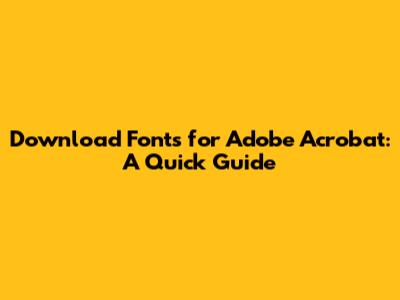
- Enhance Visual Appeal: Using unique and stylish fonts can make your documents stand out and grab attention.
- Maintain Brand Consistency: If your brand uses specific fonts, you'll need to ensure your PDFs reflect that.
- Improve Readability: Some fonts are simply easier to read than others, making your documents more accessible.
- Ensure Compatibility: Sometimes, a PDF might use fonts that aren't installed on the recipient's computer. Downloading and embedding the fonts ensures everyone sees the document as intended.
- TrueType Fonts (TTF): These are the most common type of font and are supported by both Windows and macOS. They're scalable, meaning they look good at any size.
- OpenType Fonts (OTF): OTF fonts are an extension of TrueType fonts and offer more advanced typographic features, such as ligatures, swashes, and alternate characters. They also support a wider range of characters and languages.
- PostScript Fonts (Type 1): These are older fonts that are less common these days. They're primarily used in professional printing and graphic design.
- Google Fonts: A fantastic resource for free, open-source fonts. Google Fonts offers a wide variety of styles and languages, and they're super easy to download and use.
- Adobe Fonts (formerly Typekit): If you're an Adobe Creative Cloud subscriber, you have access to thousands of fonts through Adobe Fonts. These fonts are high-quality and seamlessly integrate with Adobe Acrobat and other Adobe applications.
- MyFonts: A commercial font marketplace with a vast selection of fonts from independent foundries and designers. If you're looking for something truly unique, MyFonts is a great place to start.
- Font Squirrel: Another great source for free fonts, with a focus on fonts that are licensed for commercial use. They also have a handy Font Identifier tool that can help you identify fonts from images.
- Creative Market: This marketplace offers a wide range of design assets, including fonts. You can often find font bundles and discounted deals here.
- Legibility: Is the font easy to read, especially in smaller sizes? Avoid overly decorative or stylized fonts for body text.
- Purpose: What is the document for? A formal report will require a different font than a playful flyer.
- Brand: Does the font align with your brand's personality and values?
- Compatibility: Will the font be easily accessible and viewable on different devices and operating systems?
- Open Adobe Acrobat: Launch the application.
- Go to Preferences:
- Windows: Edit > Preferences
- macOS: Acrobat > Preferences
- Select Fonts: In the Preferences dialog box, select "Fonts" from the Categories list.
- Choose Default Fonts: Under "Default Font for", you can set the default font for:
- Proportional Font: Used for most text.
- Monospaced Font: Used for code or text where each character needs to have the same width.
- Set Font Size: You can also set the default font size here.
- Click OK: Save your changes.
- Open the PDF: Open the PDF in Adobe Acrobat.
- Edit PDF: Click on the "Edit PDF" tool in the right-hand pane (or go to Tools > Edit PDF).
- Select Text: Click on the text you want to change. A text box will appear around the selected text.
- Format Text: In the Format panel on the right, you can change the font, font size, font style (bold, italic), and other text properties.
- Choose Font: Select your desired font from the font dropdown menu. If you don't see the font you installed, make sure Adobe Acrobat is closed, and re-open it.